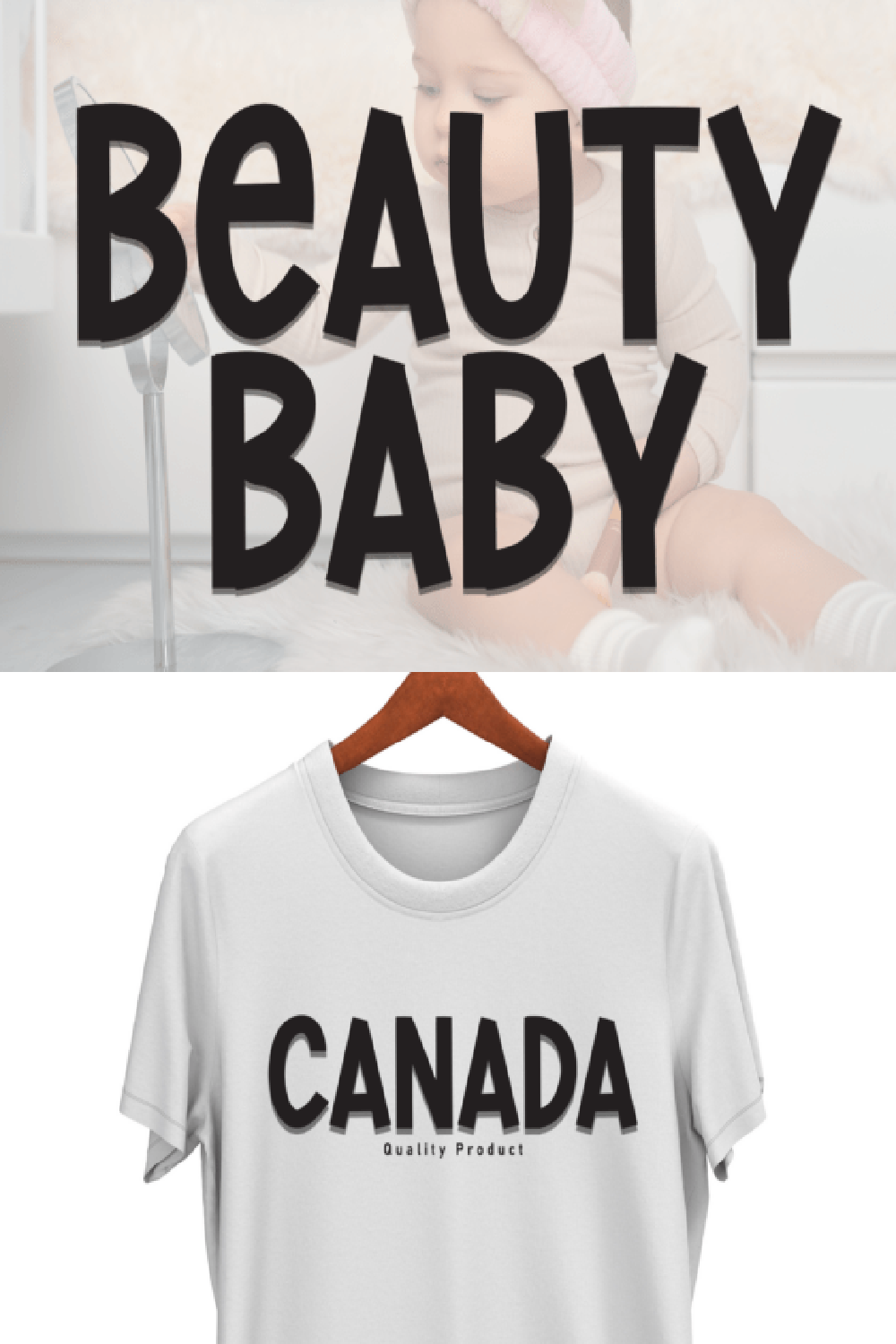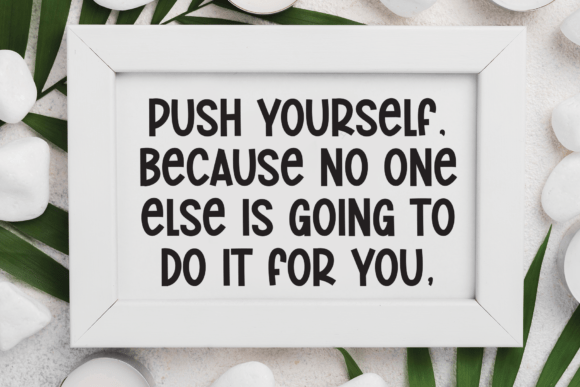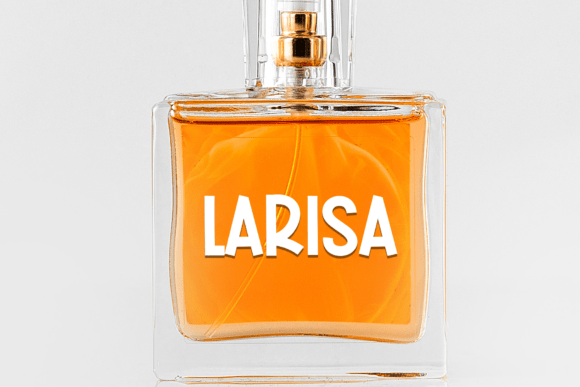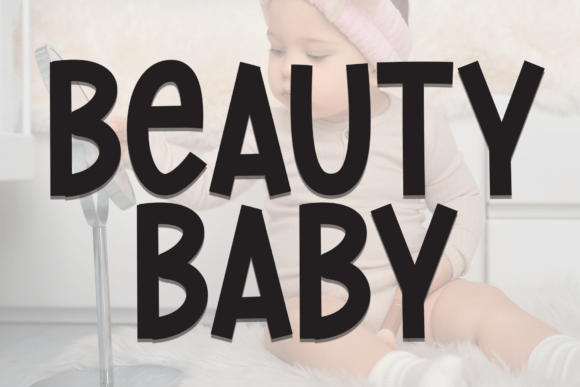
Beauty Baby Font
About the Beauty Baby Font
The Beauty Baby Font offers a perfect balance of form and function for your design needs. Experience the effortless charm of this delightful handwritten display font. Radiating sweetness and friendliness, it serves as a cherry on top for your various design needs. With its cute and playful allure, it’s an ideal companion for crafting wedding invitations, cards, or anything else that yearns for a touch of whimsy. Explore the fun side of creativity with this enchanting display font!